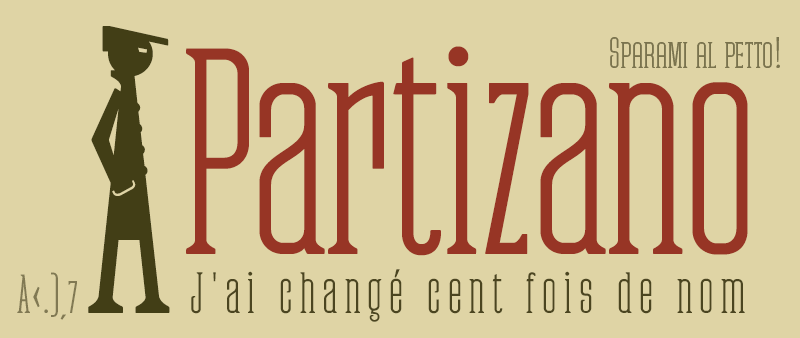
Partizano Typeface
Geometric typography with serif, extra condensed retro look and very elegant for use in publications, graphic design and advertising where you need an exclusive typography with great horizontal space saving for headlines and paragraph texts. It has a complete set of capital letters and numbers and monetary symbols in small caps, also alternative letters such as the ‘A’ capital letter or the lowercase ‘a’ type alpha.
Use the following keys to write the bitcoin symbol and the partisan icon: b #, a #